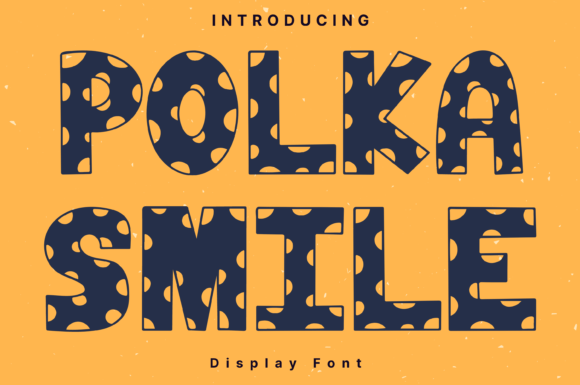
Prepare yourself to be mesmerized by Polka Smile Style Font, a whimsical and clean handwritten font that will add a touch of enchantment to your creative endeavors. Dive into a world of imagination, where words dance with grace and elegance, captivating your audience with its captivating charm.
Polka Smile Style Font belongs to the display font family, making it an ideal choice for headlines, logos, posters, and social media graphics that demand attention. Each letter, meticulously crafted by the talented AchiArt, exudes personality and charm, adding a personal touch to your designs.
With Polka Smile Style Font, you can effortlessly transform your creative visions into reality. Its versatility knows no bounds, allowing you to create designs that resonate with your audience on a deeper level. Whether you're a seasoned designer or just starting your creative journey, Polka Smile Style Font will elevate your work to new heights.
Step into a realm of endless possibilities, where Polka Smile Style Font becomes your artistic muse. Unleash your creativity and watch as your designs take on a life of their own. From enchanting invitations to captivating marketing materials, Polka Smile Style Font will leave a lasting impression on all who behold it.
Don't let this opportunity pass you by. Embrace Polka Smile Style Font and embark on a creative adventure like never before. Let your imagination soar and witness the magic unfold as your designs captivate and inspire.